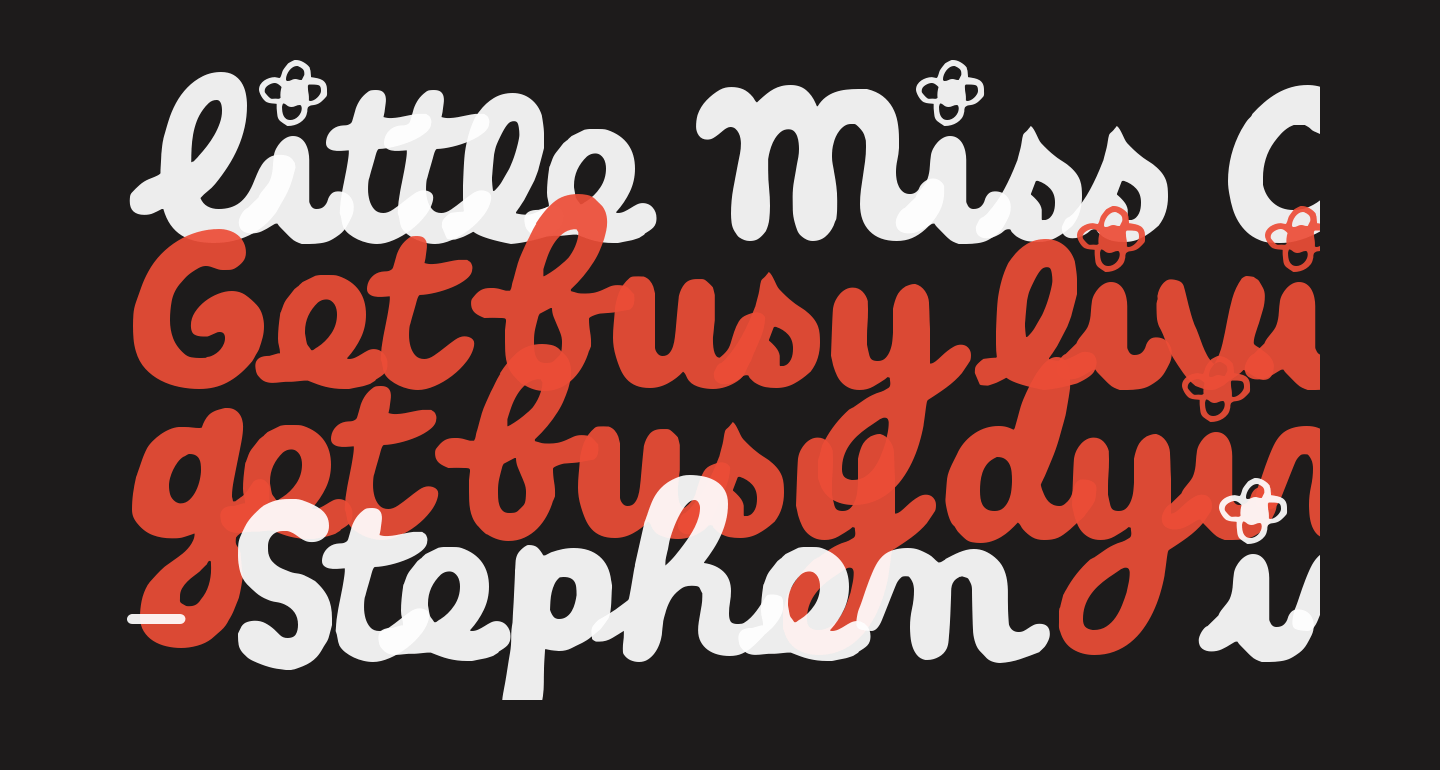
Little Miss Fonts: A Collection Of Fun And Creative Fonts For Your Design Projects
Little Miss Fonts is a collection of fun, creative, and unique fonts that are perfect for any design project. Whether you're a graphic designer, web designer, or someone just looking for a cool font to use for a project, Little Miss Fonts has something for everyone. This collection of fonts includes a variety of styles, ranging from whimsical to classic, and from playful to serious. With hundreds of fonts to choose from, you can easily find something to fit your project's needs.
What Makes Little Miss Fonts Unique?
One of the great things about Little Miss Fonts is that they are all hand-crafted and designed with love. Each font has been thoroughly thought out and carefully crafted to create a unique look and feel that is sure to stand out from the rest. In addition to the unique designs, there are also many different sizes and styles to choose from, so you can find something that fits your project's needs. Whether you're looking for a classic font or something more modern, you'll find it in the Little Miss Fonts collection.
How to Use Little Miss Fonts in Your Design Projects
Little Miss Fonts is an amazing collection of unique and creative fonts that are perfect for any design project. With hundreds of fonts to choose from, you can easily find something to fit your project's needs. Whether you're a graphic designer, web designer, or someone just looking for a cool font to use for a project, Little Miss Fonts has something for everyone. So if you're looking for something unique and creative, then be sure to check out the Little Miss Fonts collection. You won't be disappointed.